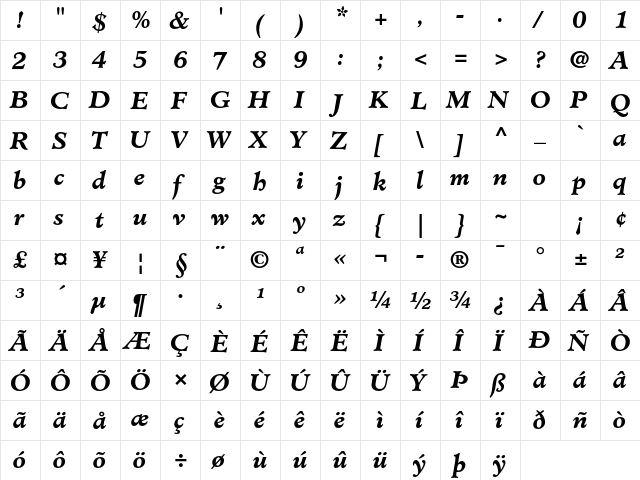
Minister Std Bold Italic
Bold Italic ·  M. Fahrenwaldt ·
Design Context for Minister Std Typeface
Minister Std takes a measured approach to typography — its balanced proportions and neutral character make it a reliable workhorse for both digital and print work. The slanted form adds forward momentum and visual energy. Its bold stroke weight gives it real presence on the page.
Pro Tip: Use Minister Std for emphasis, pull quotes, and subheadings where its slanted energy can add rhythm to the layout.